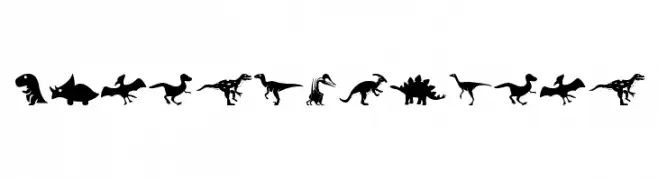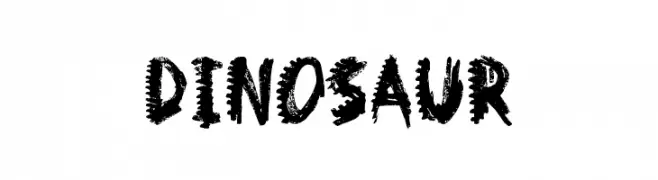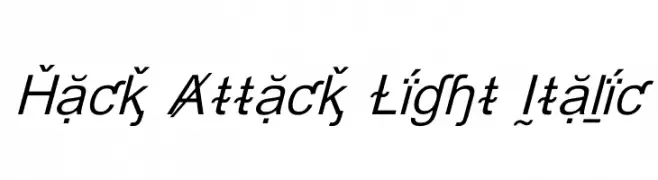
A whimsical, stone-encased font with a prehistoric aesthetic.
A bold, textured font with a rugged, prehistoric aesthetic.
A bold, stone-like font with a rugged, 3D appearance.
Silhouette icons of various dinosaurs and prehistoric creatures.
A bold, rugged font with a prehistoric, hand-carved appearance.
A modern, light italic font with smooth curves and comprehensive accented characters.
A bold, outlined font with a geometric and modern style.
Fantasy-themed display font with mythical creature silhouettes.